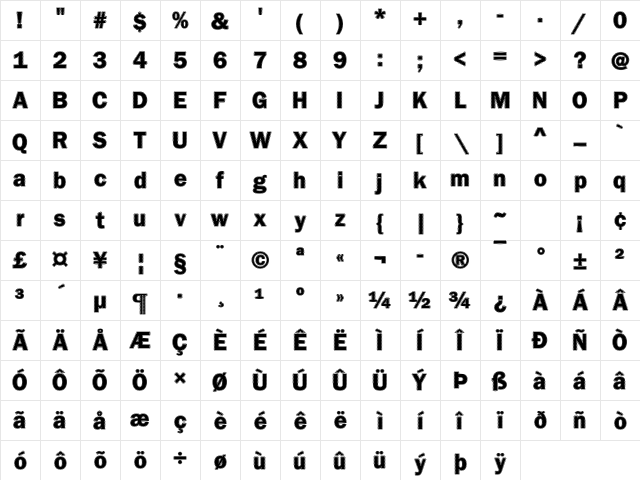
DTCFranklinGotM40 Regular
Design Context for DTCFranklinGotM40
DTCFranklinGotM40 is a composed and adaptable typeface that performs quietly and consistently across a wide range of design contexts.
Pro Tip: Use DTCFranklinGotM40 in both headline and body roles to test its range before committing to a single application.